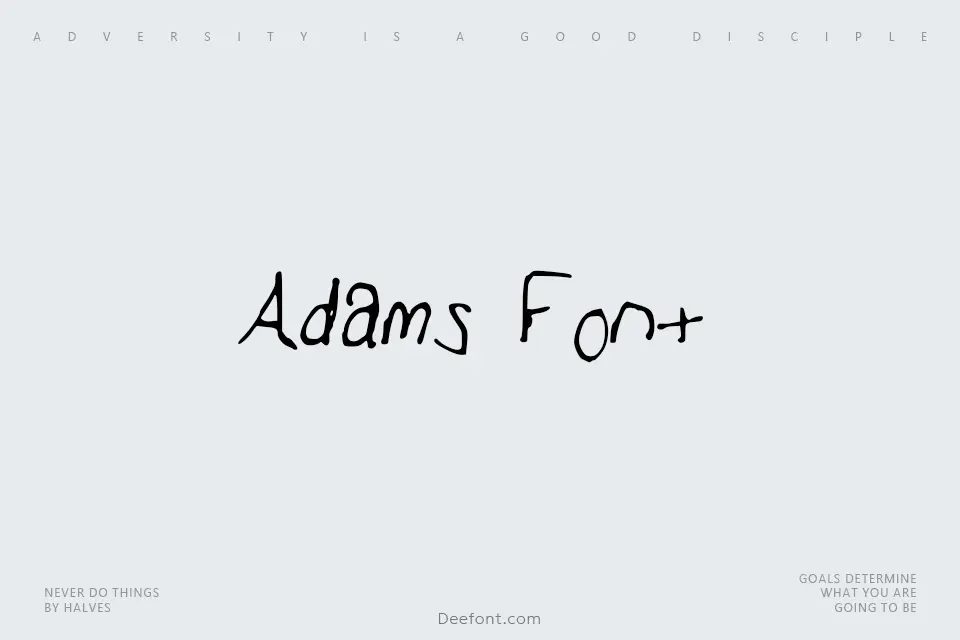
Adams Font Font
Adams Font is a charming handwritten script typeface featuring organic, playful letterforms with authentic hand-drawn characteristics and irregular strokes. Originally created by an 11-year-old designer, this engaging font captures a youthful, carefree spirit ideal for posters, greeting cards, party invitations, casual branding projects, and creative display typography. The uneven baseline and dynamic letterforms evoke genuine pen strokes, making it perfect for adding personality and warmth to designs requiring a friendly, approachable touch without sacrificing readability.